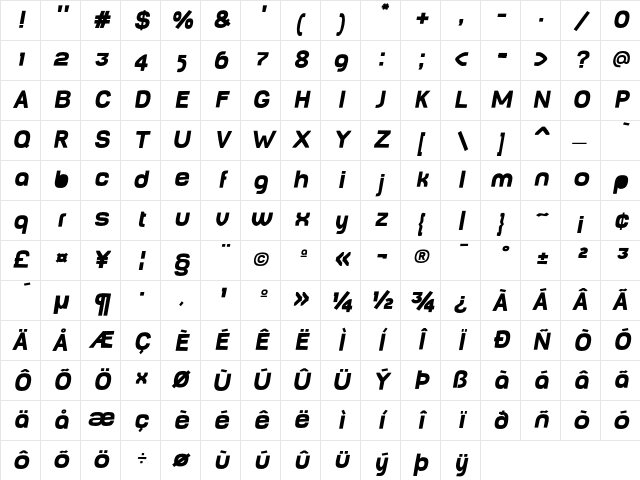
BabyMine FatOblique
Style: FatOblique
BabyMine Family
BabyMine FatOblique
Complete BabyMine FatOblique glyph index. Displaying only characters natively supported by BabyMine FatOblique font.
Design Context for BabyMine
BabyMine is a composed and adaptable typeface that performs quietly and consistently across a wide range of design contexts. The slanted form adds forward momentum and visual energy.
Pro Tip: Use BabyMine for emphasis, pull quotes, and subheadings where its slanted energy can add rhythm to the layout.